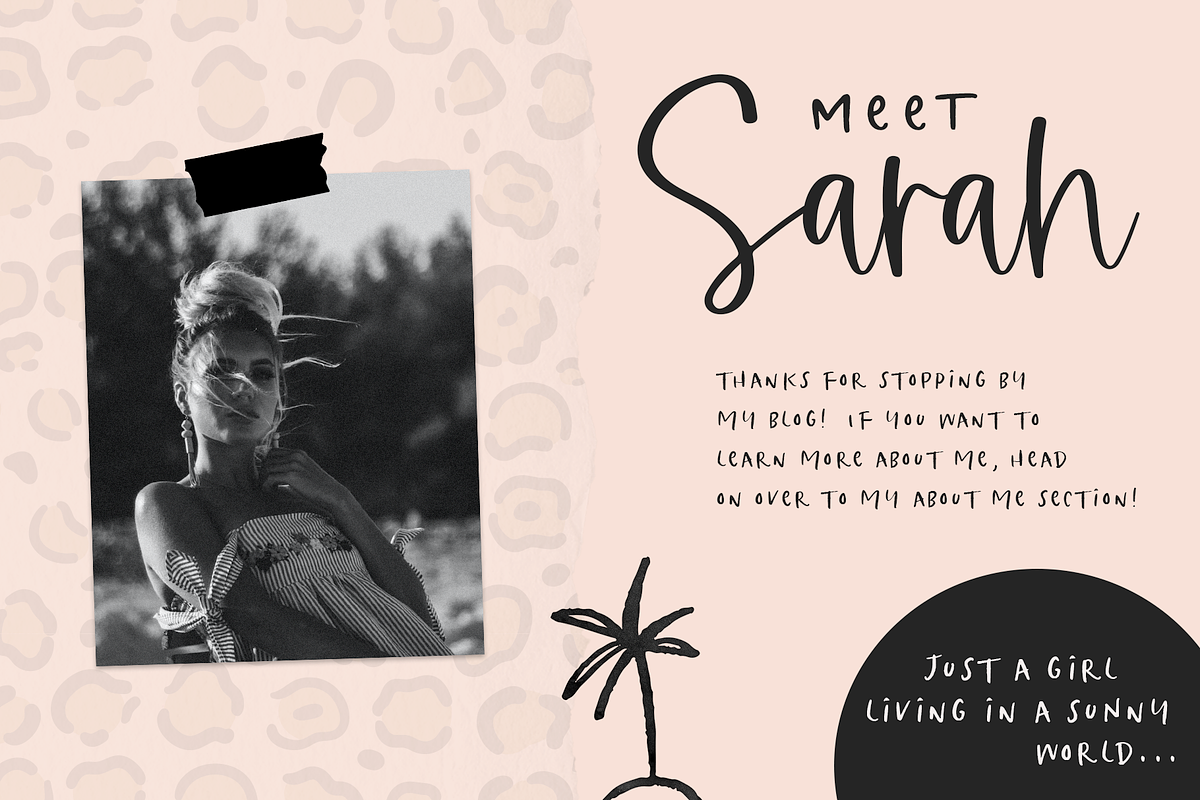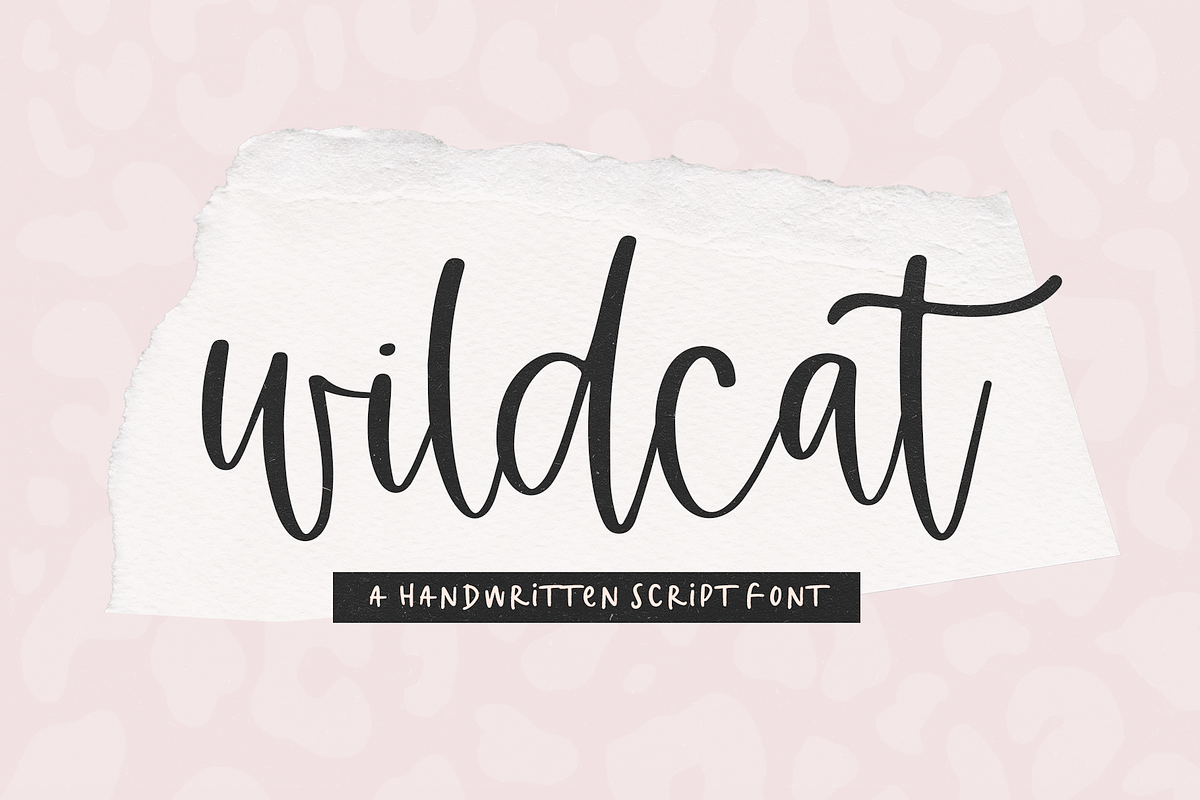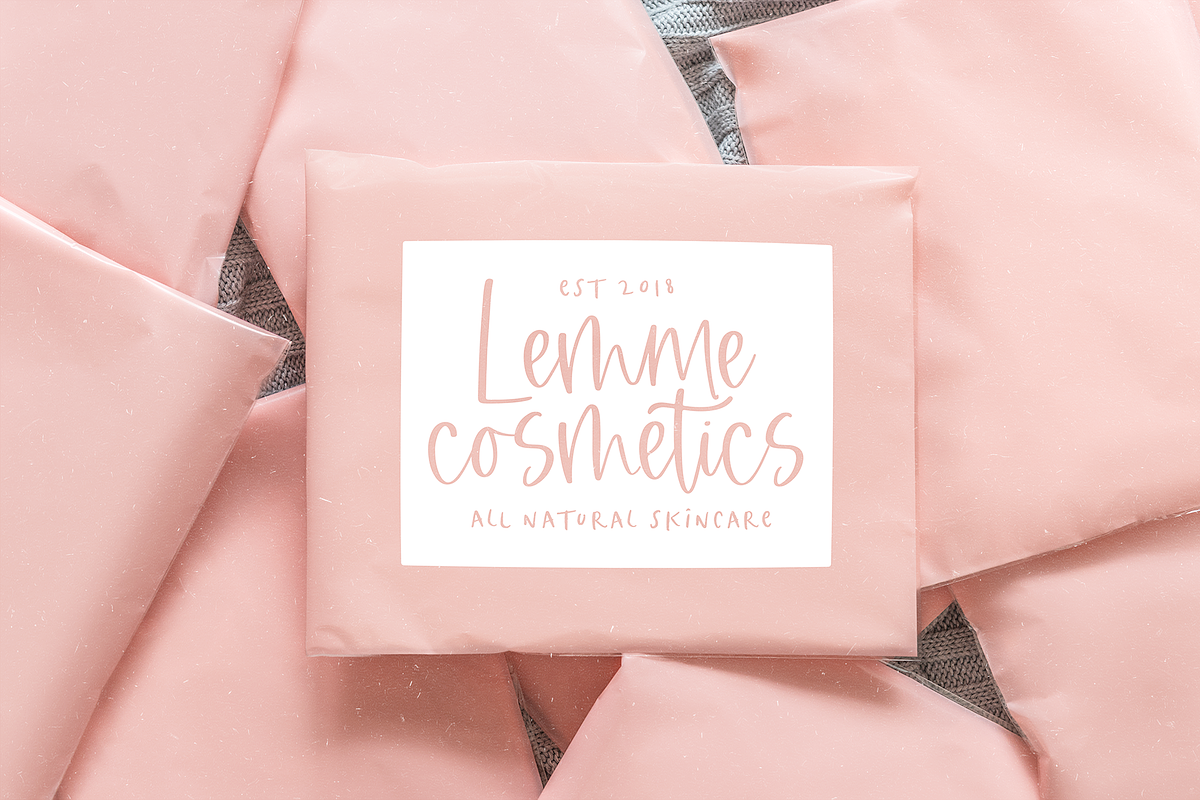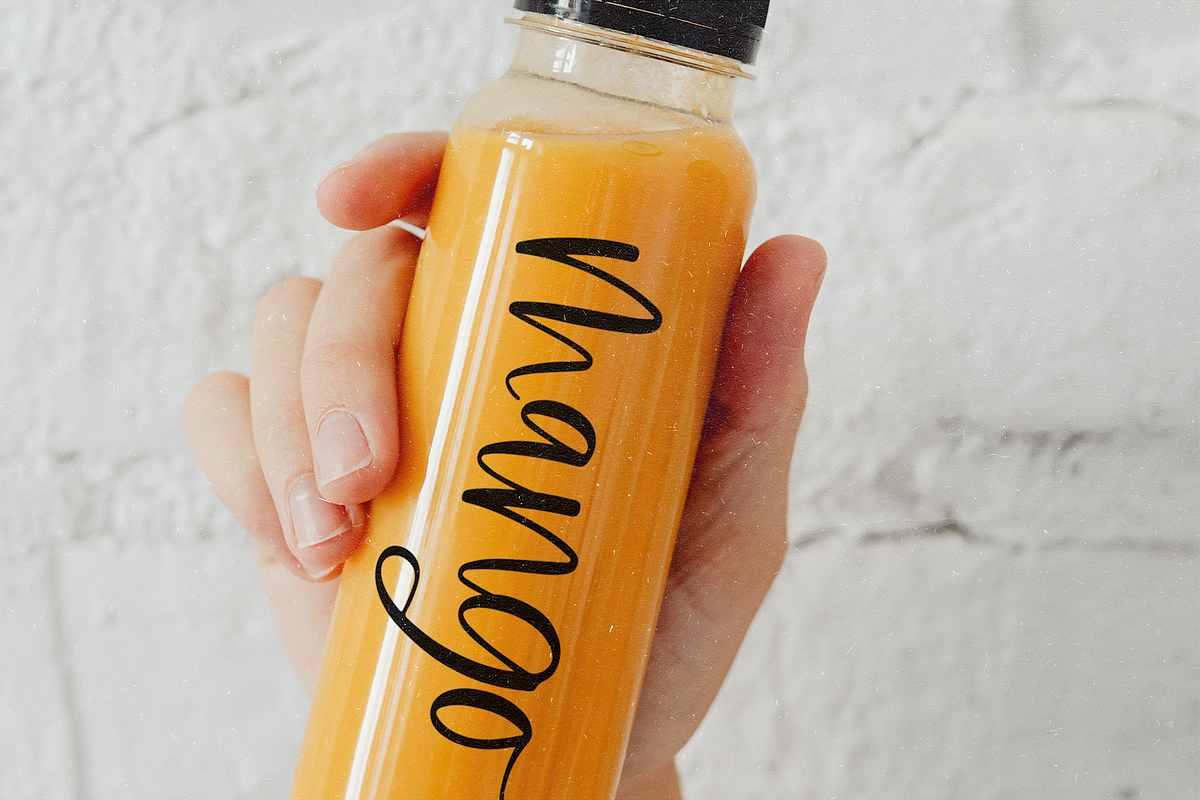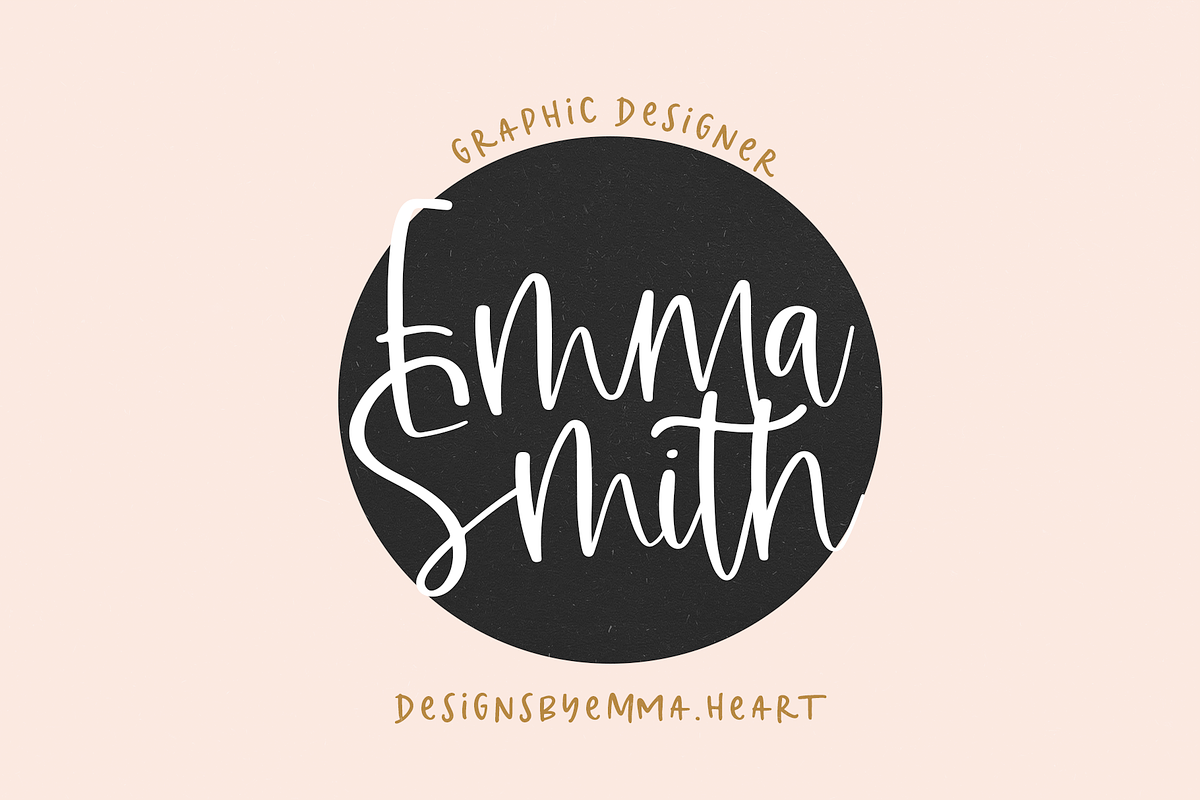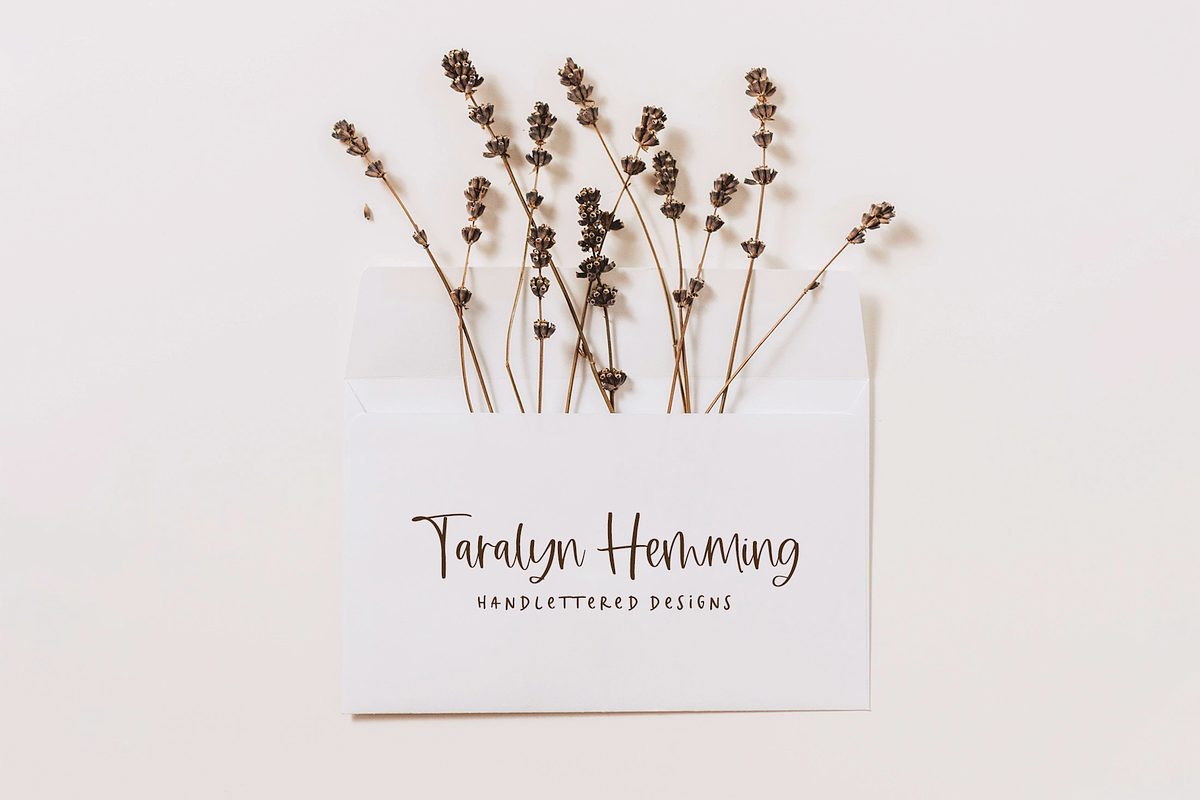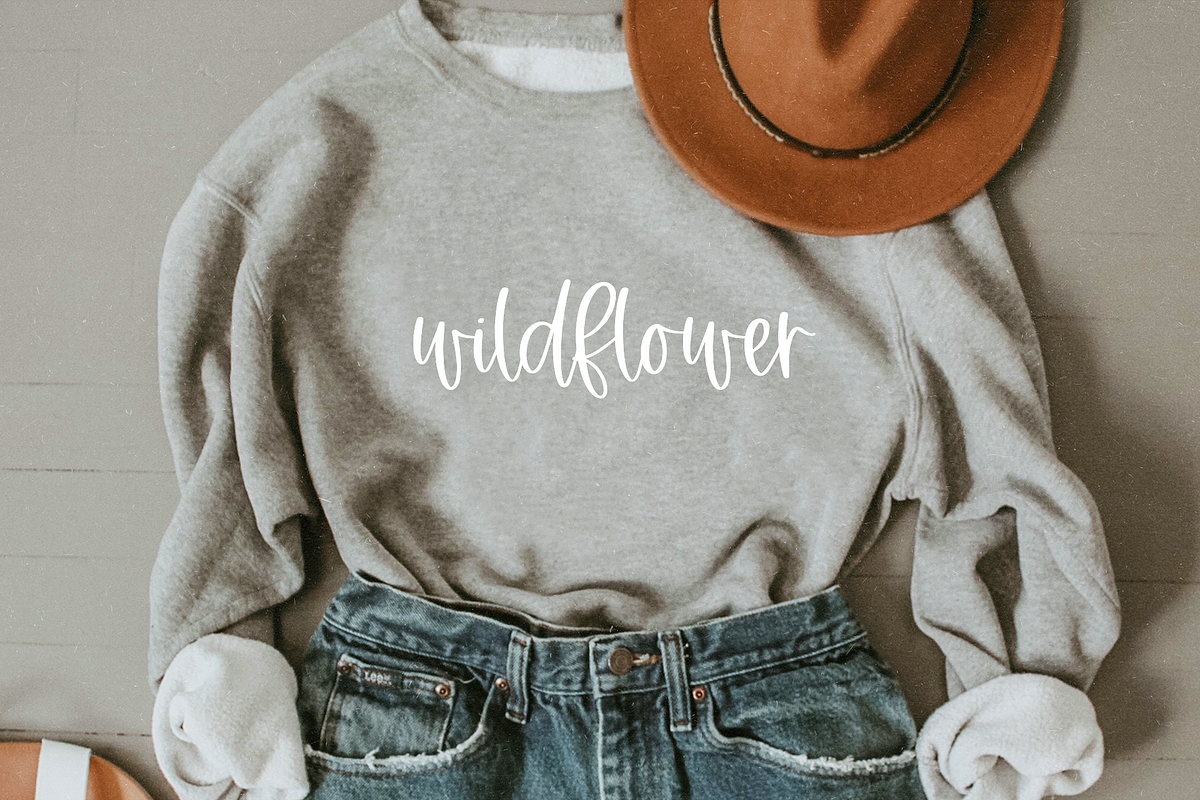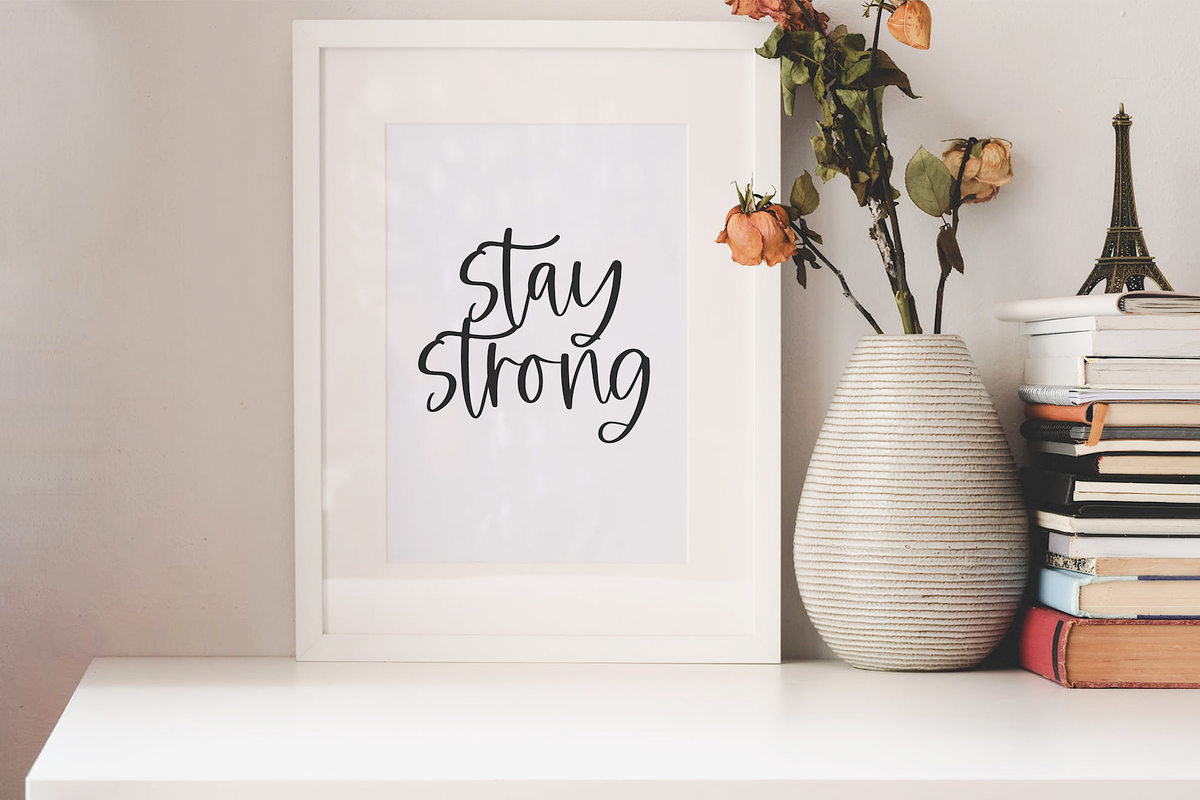
Wildcat | Handwritten Script Font
Wildcat is a handwritten script font in a modern style!
This font is perfect for branding, logos, invitations, business cards, web, instagram, social media, quotes, prints, wall decor, cricut projects, and more!
Most accent letters included.
Wildcat | Handwritten Script Font by KA Designs fits naturally into Branding, posters, packaging, typography.